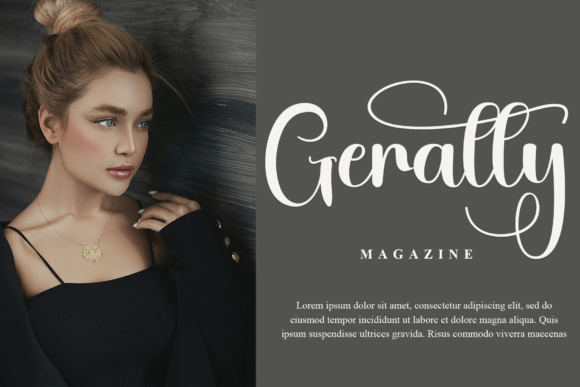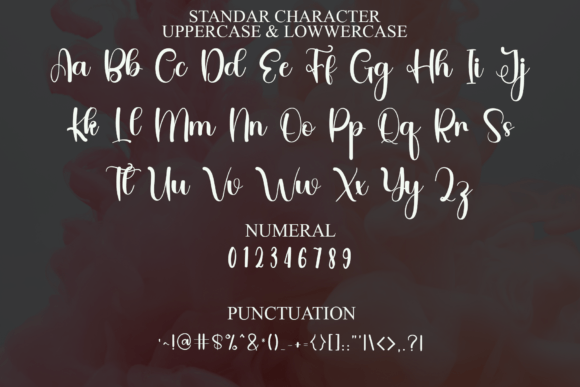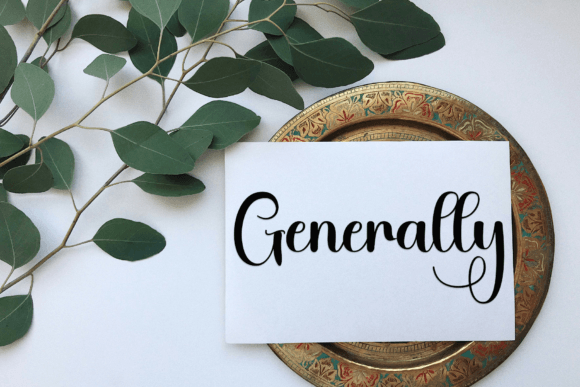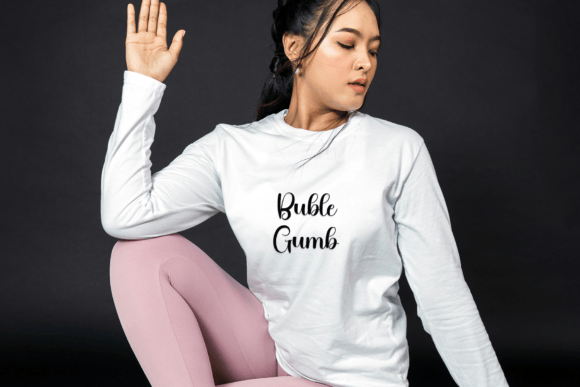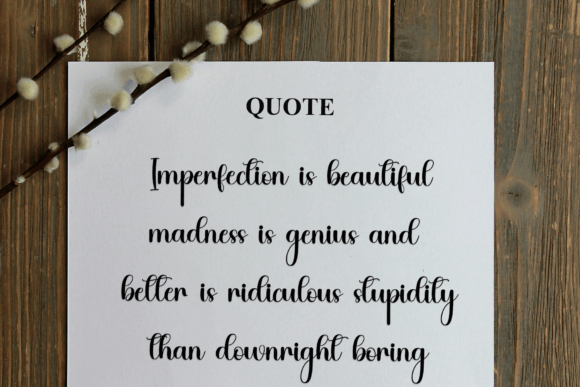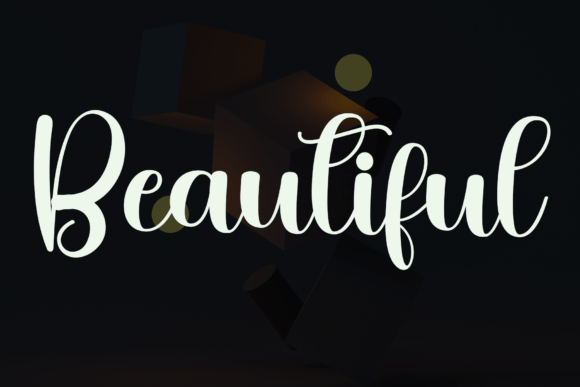
Introducing Alright Font: Elevate Your Designs with Timeless Elegance
Are you on the hunt for a font that exudes style, sophistication, and a touch of classic charm? Look no further than Alright Font, a stunning handwritten typeface that is sure to elevate your designs to new heights. Inspired by the timeless beauty of classic calligraphy, Alright Font brings a contemporary atmosphere to the table, making it the perfect choice for designers and crafters looking to add a dash of elegance to their projects.
The Inspiration Behind Alright Font
Alright Font is a masterful blend of traditional calligraphy and modern design sensibilities. Its roots lie in the classic scripts of the past, yet it has been carefully crafted to meet the demands of modern design. This font’s creator has drawn inspiration from the flowing lines, intricate details, and impeccable form of traditional calligraphy, resulting in a typeface that is both balanced and varied.
What Makes Alright Font Stand Out
- Contemporary Atmosphere: Despite its classic inspiration, Alright Font boasts a distinctly contemporary feel. Its clean lines, subtle variations, and flowing script make it perfect for designs that require a touch of modern sophistication.
- Impeccable Form: The font’s attention to detail is evident in its impeccable form. Each letter has been carefully crafted to ensure that the font looks stunning in any context, from headings and titles to body text and quotes.
- Balanced and Varied: Alright Font’s balanced and varied design makes it incredibly versatile. It can be used in a wide range of applications, from elegant branding and packaging to beautiful stationery and digital designs.
Alright Font is a dream come true for designers and crafters looking to add a touch of elegance to their projects. Whether you’re working on a commercial design or a personal craft project, this font is sure to impress. Its extensive feature set and versatility make it an excellent choice for:
- Branding and Packaging: Create stunning logos, business cards, and product packaging that stands out from the crowd.
- Stationery and Invitations: Add a touch of class to your stationery, invitations, and greeting cards.
- Digital Designs: Use Alright Font to create beautiful social media graphics, blog headers, and website elements.
- Craft Projects: Perfect for crafters, this font can be used to create gorgeous handmade cards, scrapbooking pages, and other craft projects.
In conclusion, Alright Font is a stylish and versatile typeface that is sure to become a staple in any designer’s or crafter’s toolkit. Its unique blend of classic inspiration and modern sensibilities makes it perfect for a wide range of applications. With its PUA encoding, impeccable form, and balanced design, Alright Font is the perfect choice for anyone looking to add a touch of elegance and sophistication to their projects. So why wait? Discover the beauty of Alright Font today and take your designs to the next level!